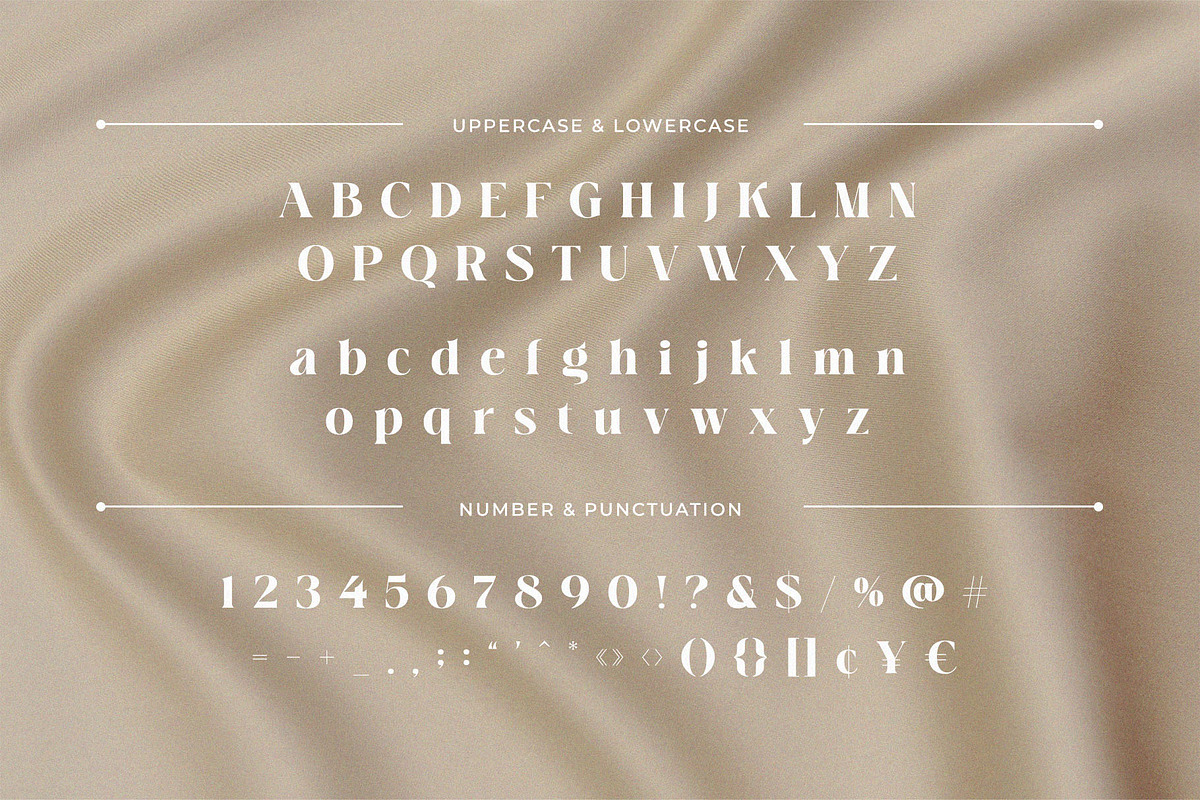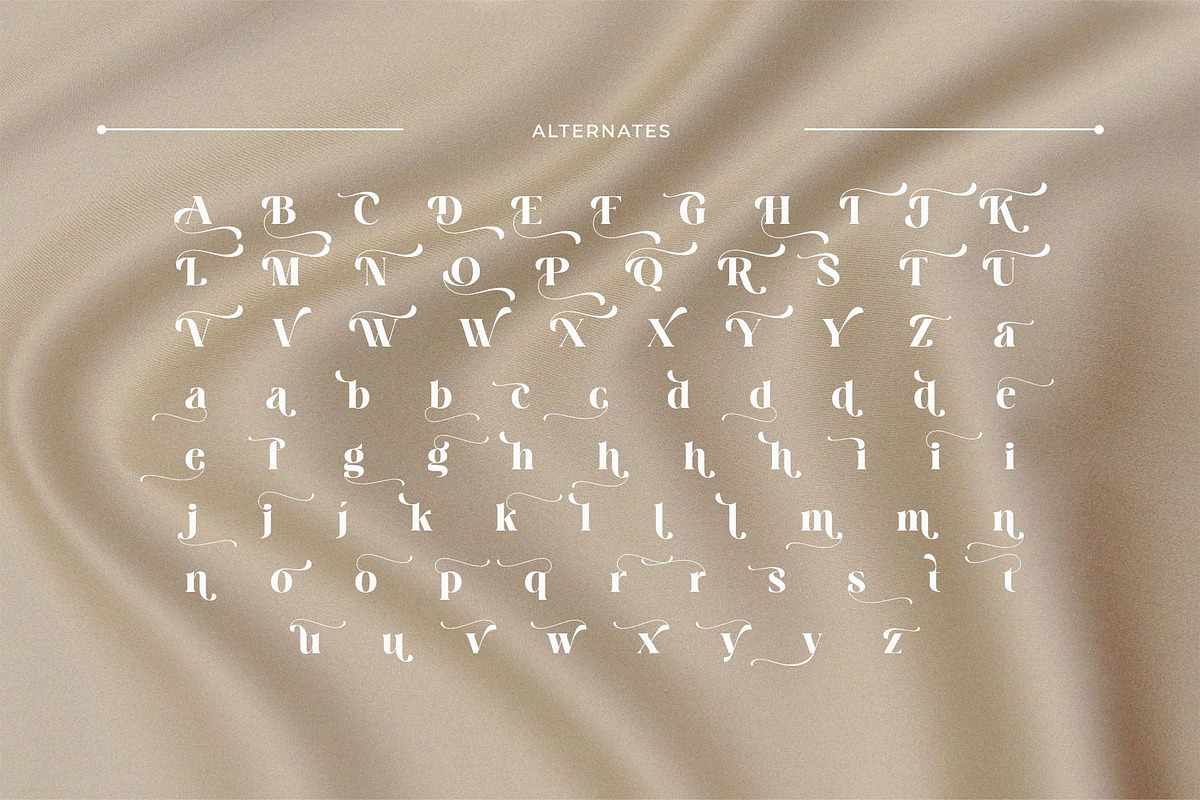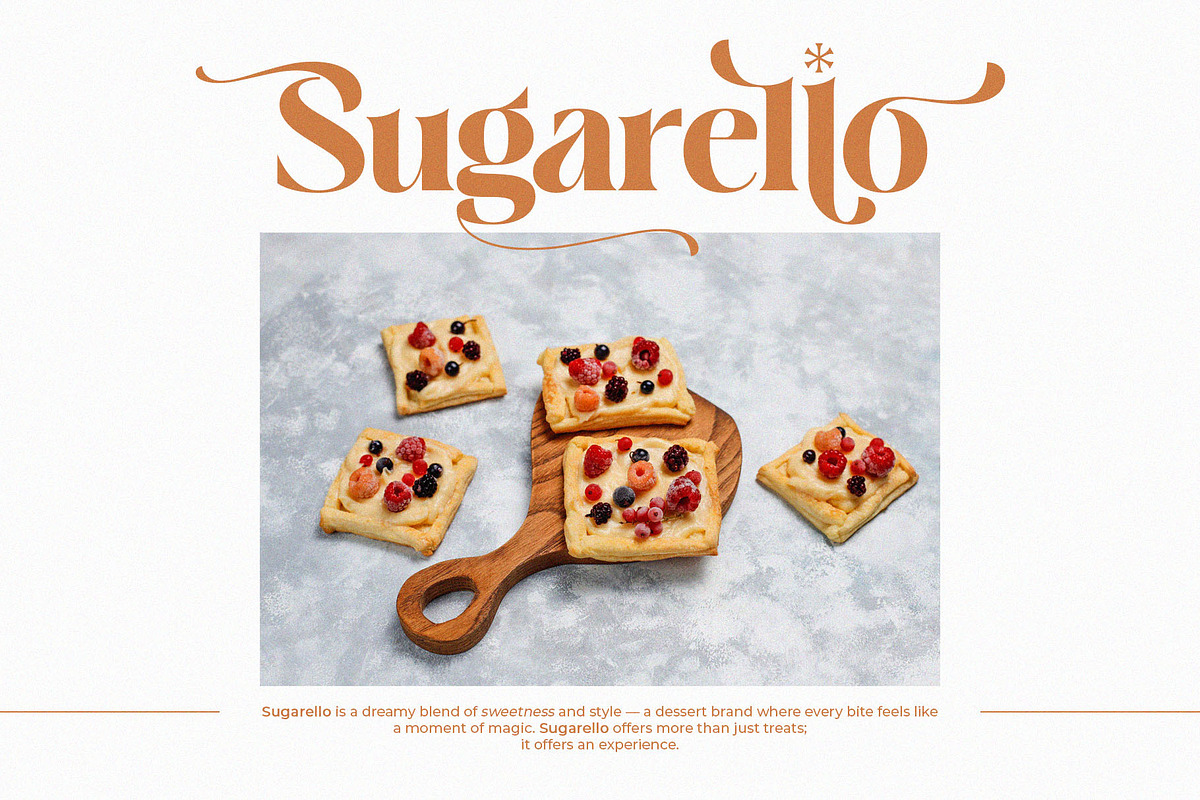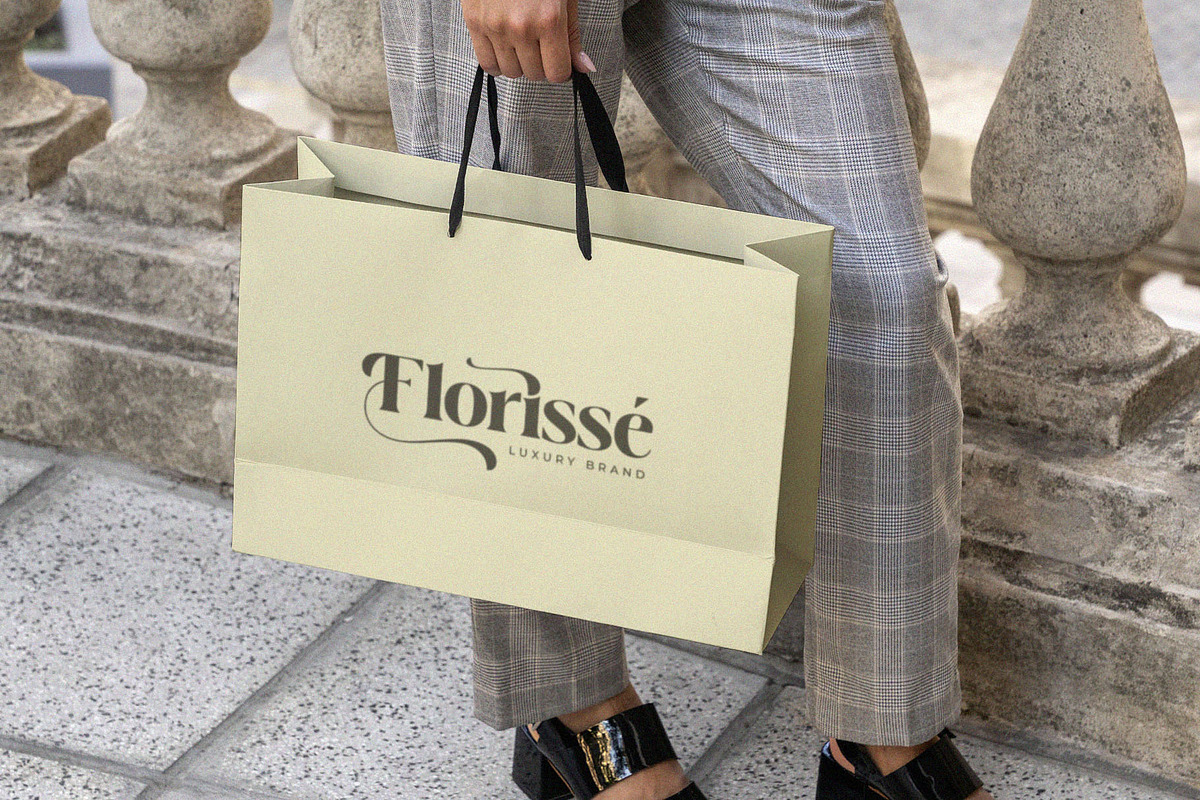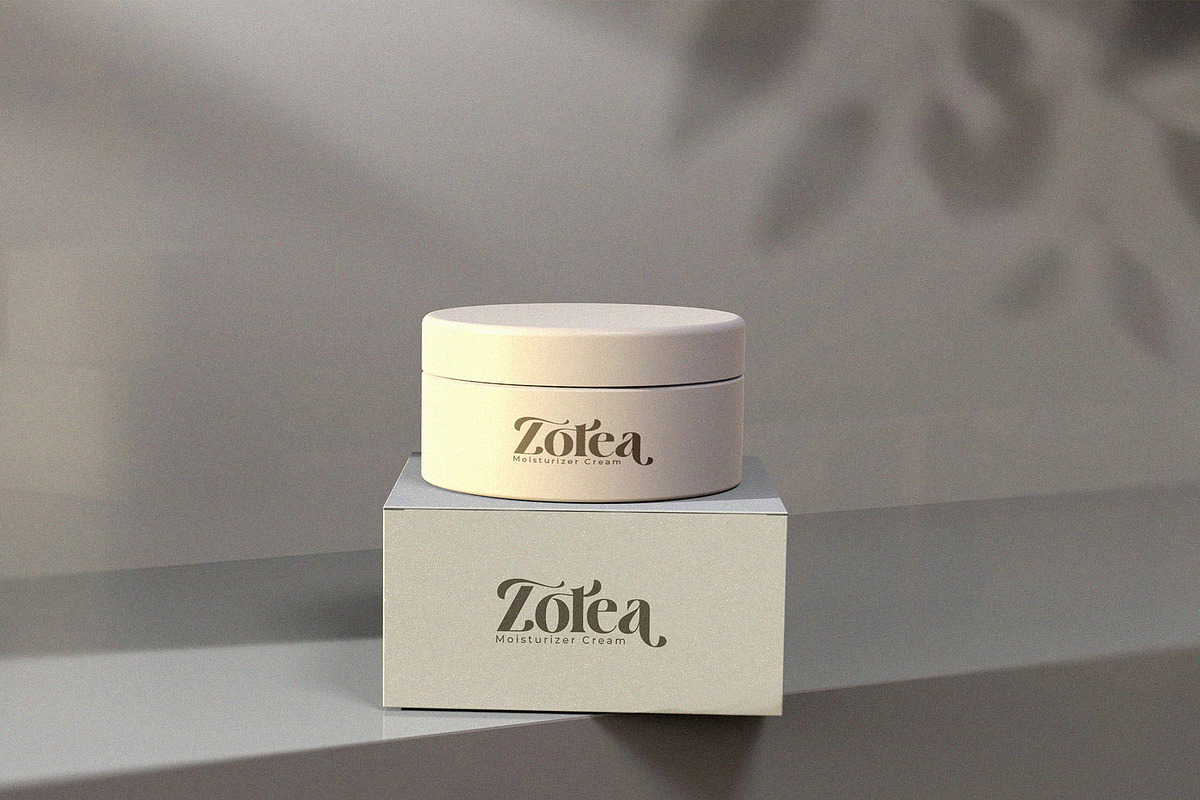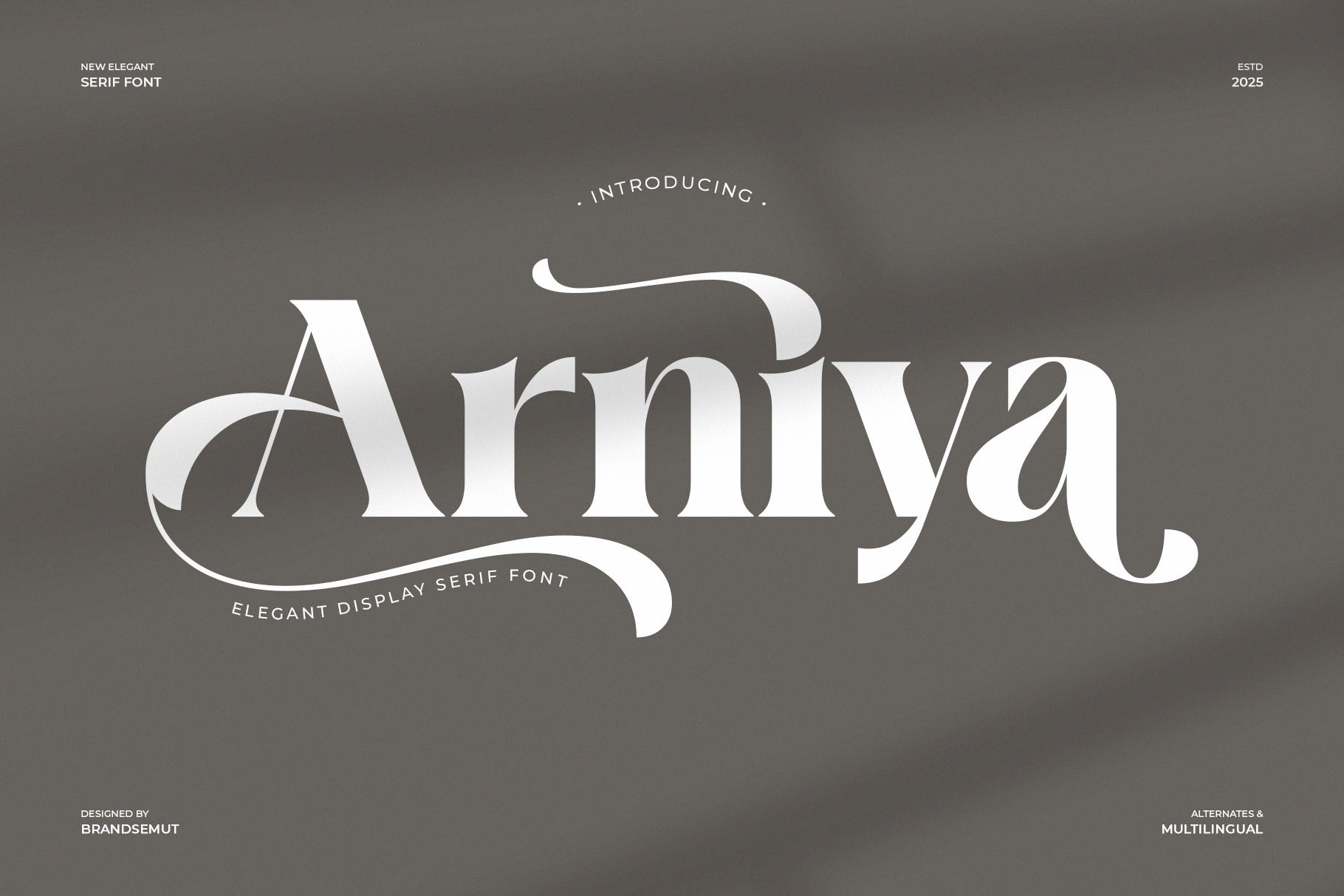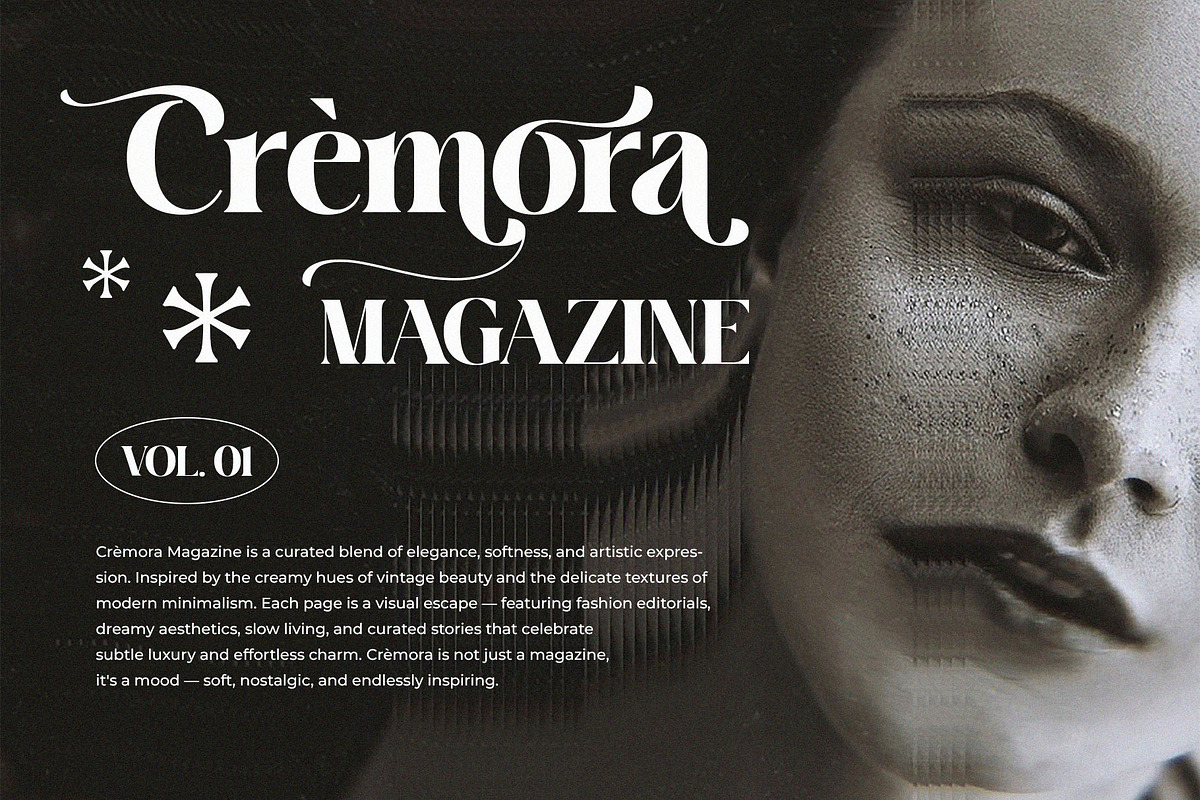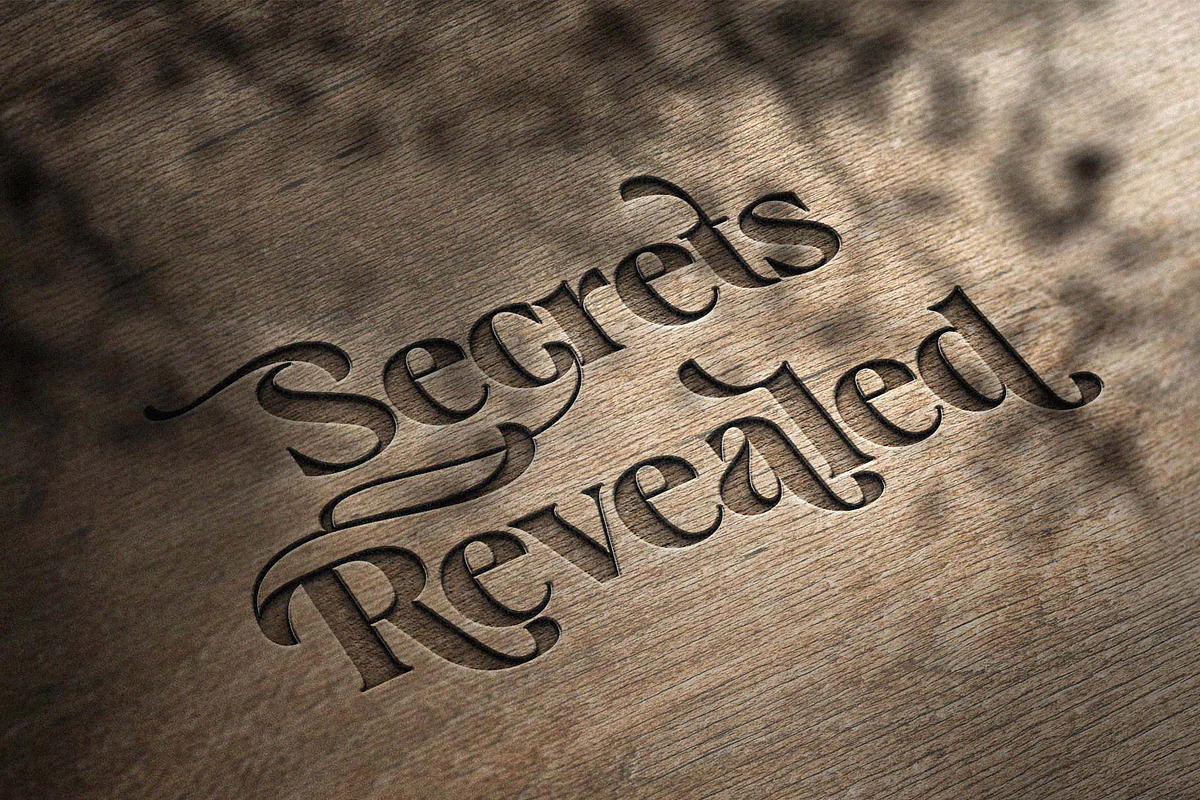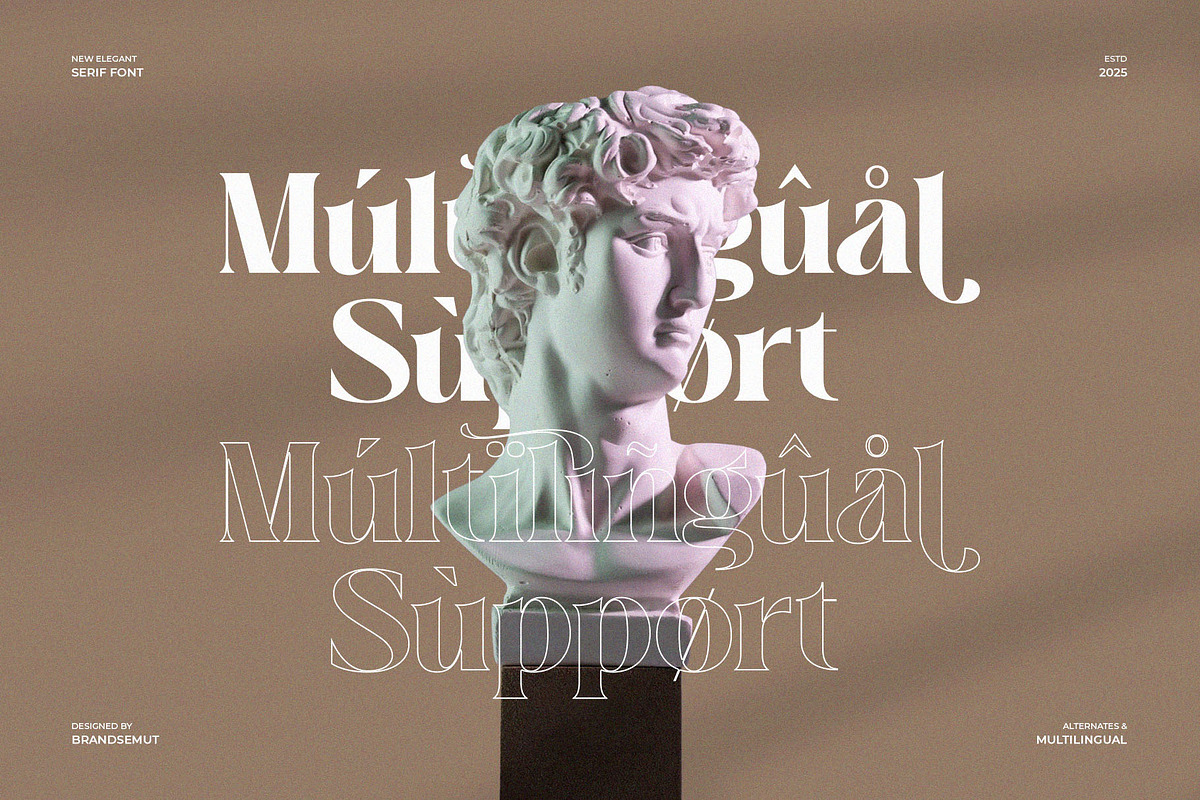
Arniya – Elegant Display Serif Font
Arniya is an elegant display serif font that combines timeless sophistication with a stylish modern twist. Designed with graceful curves, sharp details, and artistic alternates, Arniya is the perfect choice for projects that require a luxurious and professional typographic style.
This typeface blends classic serif elegance with a contemporary edge, making it versatile for branding, editorial layouts, packaging, social media, and creative design projects. Its bold yet refined look ensures that every design stands out with confidence and class.
- Complete uppercase and lowercase characters
- Numerals, punctuation, and multilingual support
- Stylish alternates & ligatures for creative combinations
🎯 Perfect For:
- Luxury Branding & Logo Design – Ideal for fashion, beauty, jewelry, and premium businesses.
- Editorial & Print Projects – Suitable for magazines, book covers, and professional layouts.
- Packaging Design – Add elegance to cosmetics, perfume, food, and luxury products.
- Digital & Social Media – Create eye-catching Instagram posts, ads, and website headers.
- Creative Typography – Perfect for posters, invitations, and high-end marketing materials.
🌟 Why Choose Arniya?
- Elegant & Stylish Design – Perfect balance between classic serif and modern aesthetics.
- Versatile & Professional – Suitable for branding, editorial, packaging, and digital content.
- Premium Quality – Clean letterforms crafted with detail for beauty and readability.
Arniya is more than just a font—it’s a bold statement of elegance. Bring timeless style and sophistication to your next project with this luxurious display serif typeface.